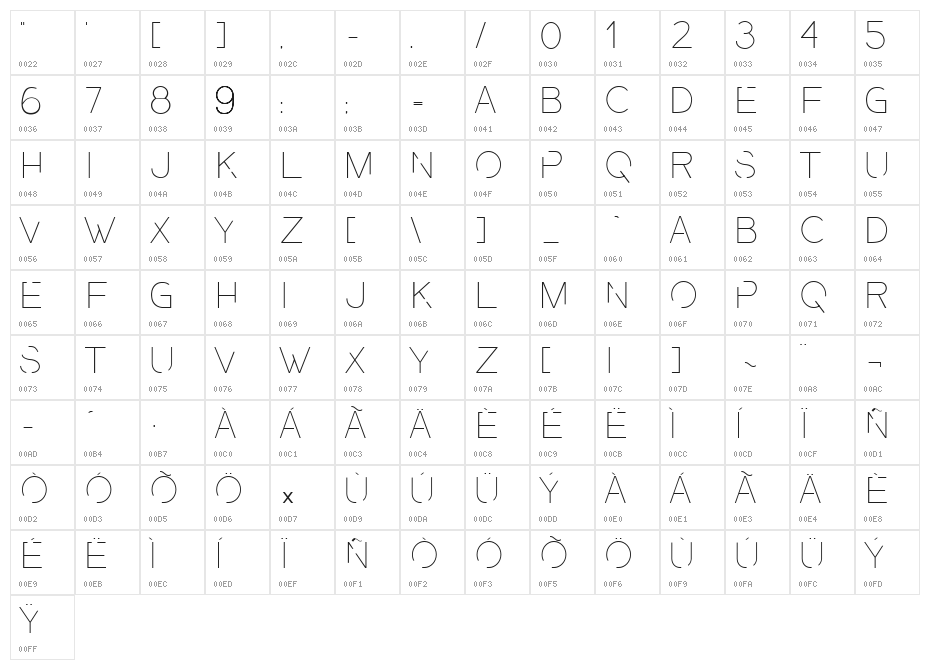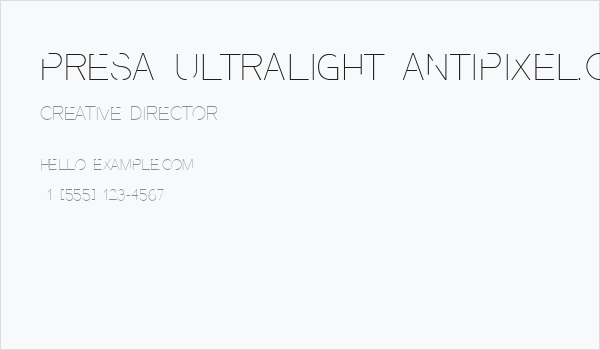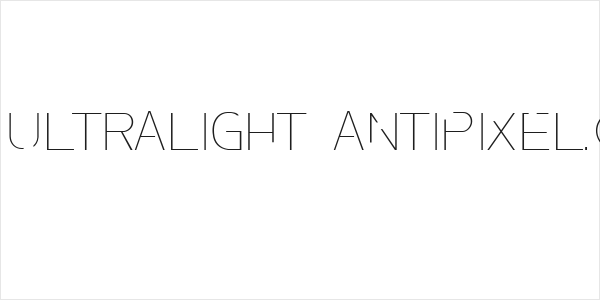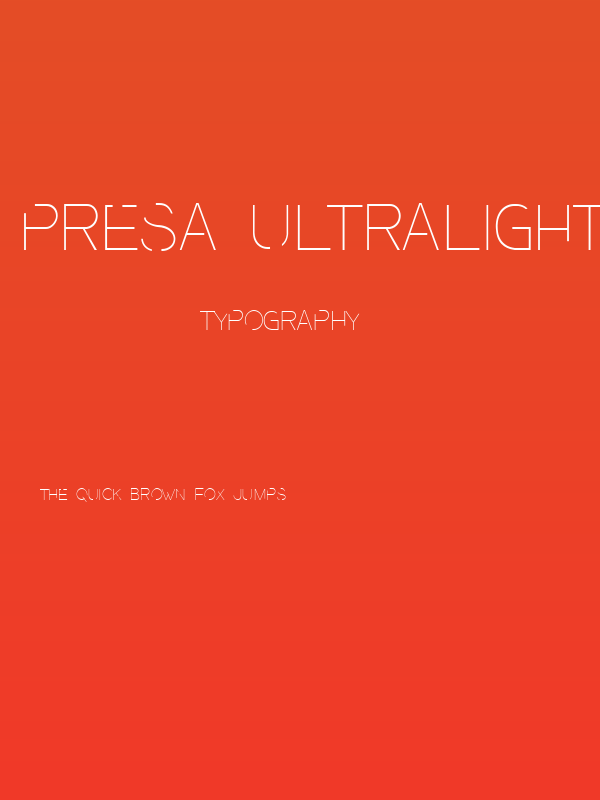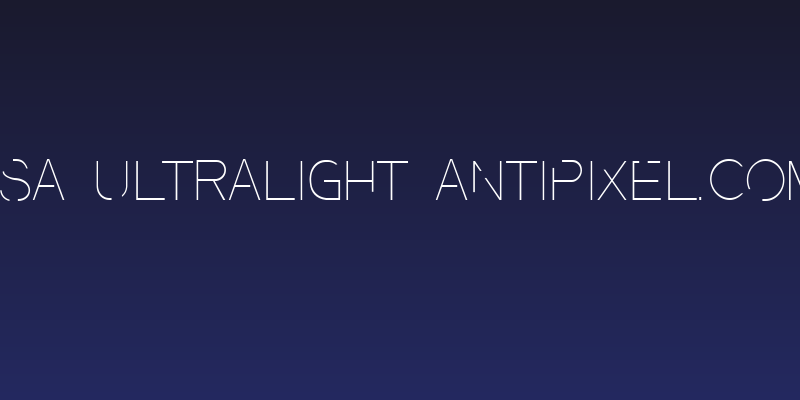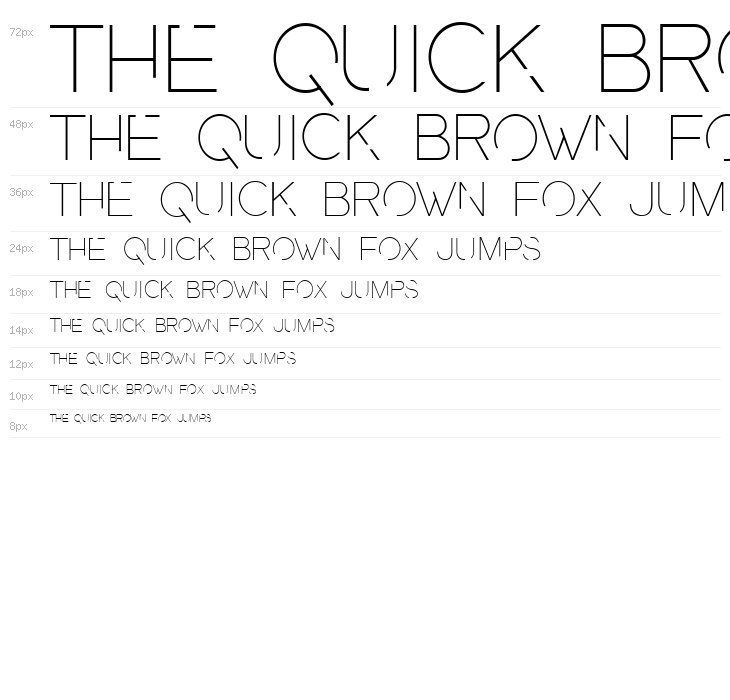
This font features a sleek and ultra-light design, characterized by its minimalistic and modern aesthetic. The characters are constructed with thin, consistent strokes that give it an airy and open feel. The uppercase and lowercase letters maintain a geometric structure, with some unique angular cuts and intersections that add a distinctive flair. The numerals are clear and legible, matching the overall style of the alphabet. Special characters are included, maintaining the same thin line weight, ensuring a cohesive look across all glyphs. This font's simplicity and elegance make it suitable for contemporary design projects.
| Use Case | Headlines, Logos, Editorial |
| Proposed Projects | Ideal for modern branding, minimalist posters, tech-related designs, and editorial layouts. |